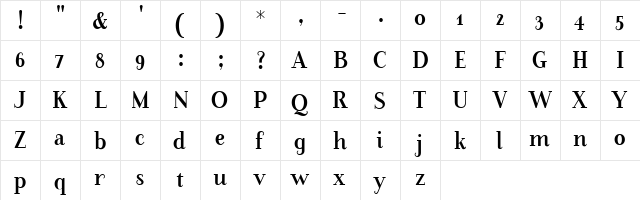
Farewell Angelina Sample Regular
| Foundry | Ana Parracho |
| Designer | Ana Parracho |
Design Context for Farewell Angelina Sample Typeface
Farewell Angelina Sample takes a measured approach to typography — its balanced proportions and neutral character make it a reliable workhorse for both digital and print work.